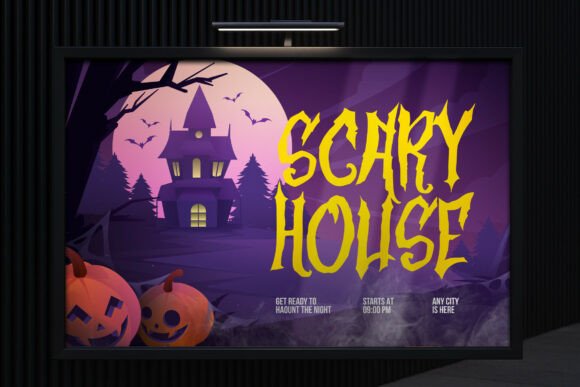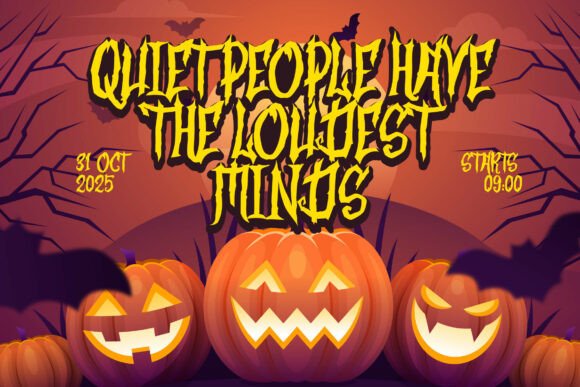
Introduction to Death Curse Font
Death Curse is a horror font twisted with root-like details; each letter feels carved from dark forests where old witches whisper curses.
Perfect for Halloween posters, occult titles, and designs that demand a chilling, mystical touch, from occult invitations to dark fantasy covers, This font turns your work into a chilling relic of terror With three versatile styles: Regular, Outline, and Extrude, Death Curse lets you layer, mix, and experiment for endless haunting variations.
Key Features of Death Curse Font
Why Choose Death Curse Font?